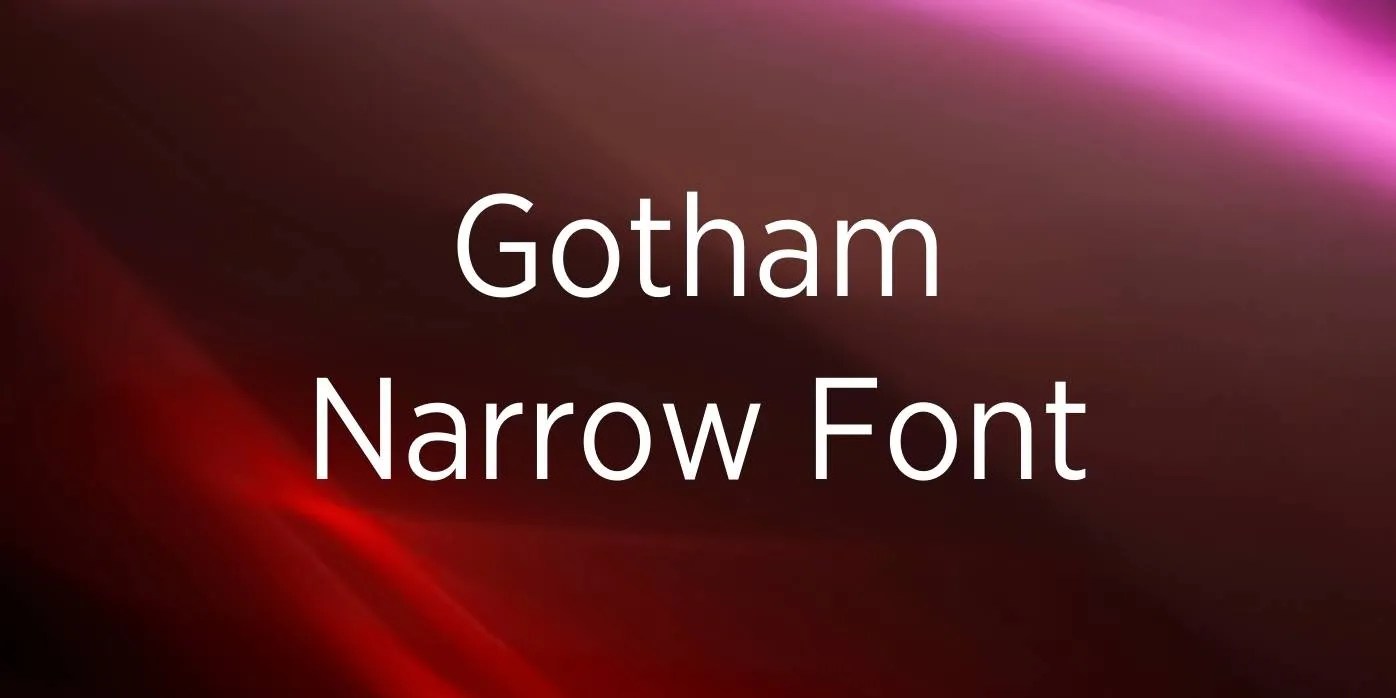
Gotham Font Alternative In Word . In this article, we'll provide you with 14 gotham font alternatives. Gotham, fortunately, has some really good google font alternatives. Montserrat is going to be your best bet. In this post, we check out some of the best fonts similar to gotham. Do you like the gotham font, but want a more stylish approach for your advertisements? From gotham light alternatives to gotham black fonts, gotham book fonts,. How about a delicate font for printing out cards or brochures? If you’re looking for fonts similar to gotham that capture its clean, modern aesthetic and versatility, here are several great. However, if that one doesn't work for.
Do you like the gotham font, but want a more stylish approach for your advertisements? However, if that one doesn't work for. In this article, we'll provide you with 14 gotham font alternatives. How about a delicate font for printing out cards or brochures? From gotham light alternatives to gotham black fonts, gotham book fonts,. In this post, we check out some of the best fonts similar to gotham. If you’re looking for fonts similar to gotham that capture its clean, modern aesthetic and versatility, here are several great. Gotham, fortunately, has some really good google font alternatives. Montserrat is going to be your best bet.
Gotham Font Alternative In Word In this article, we'll provide you with 14 gotham font alternatives. Do you like the gotham font, but want a more stylish approach for your advertisements? From gotham light alternatives to gotham black fonts, gotham book fonts,. In this post, we check out some of the best fonts similar to gotham. In this article, we'll provide you with 14 gotham font alternatives. Montserrat is going to be your best bet. Gotham, fortunately, has some really good google font alternatives. If you’re looking for fonts similar to gotham that capture its clean, modern aesthetic and versatility, here are several great. However, if that one doesn't work for. How about a delicate font for printing out cards or brochures?
A24 Font Alternatives A Guide To Finding The Right Font Gotham Font Alternative In Word Montserrat is going to be your best bet. From gotham light alternatives to gotham black fonts, gotham book fonts,. In this article, we'll provide you with 14 gotham font alternatives. Do you like the gotham font, but want a more stylish approach for your advertisements? However, if that one doesn't work for. Gotham, fortunately, has some really good google font. Gotham Font Alternative In Word.
Fonts Alternative Typeface Options MadeByShape Gotham Font Alternative In Word Gotham, fortunately, has some really good google font alternatives. From gotham light alternatives to gotham black fonts, gotham book fonts,. Montserrat is going to be your best bet. In this article, we'll provide you with 14 gotham font alternatives. In this post, we check out some of the best fonts similar to gotham. Do you like the gotham font, but. Gotham Font Alternative In Word.
Gotham Narrow Font Free Download Gotham Font Alternative In Word From gotham light alternatives to gotham black fonts, gotham book fonts,. Montserrat is going to be your best bet. In this post, we check out some of the best fonts similar to gotham. Gotham, fortunately, has some really good google font alternatives. Do you like the gotham font, but want a more stylish approach for your advertisements? How about a. Gotham Font Alternative In Word.
10 Free Font Alternatives to Gotham WDD Gotham Font Alternative In Word How about a delicate font for printing out cards or brochures? Do you like the gotham font, but want a more stylish approach for your advertisements? However, if that one doesn't work for. If you’re looking for fonts similar to gotham that capture its clean, modern aesthetic and versatility, here are several great. Montserrat is going to be your best. Gotham Font Alternative In Word.
10 Free Font Alternatives to Gotham PHPInfo Gotham Font Alternative In Word If you’re looking for fonts similar to gotham that capture its clean, modern aesthetic and versatility, here are several great. In this post, we check out some of the best fonts similar to gotham. However, if that one doesn't work for. From gotham light alternatives to gotham black fonts, gotham book fonts,. In this article, we'll provide you with 14. Gotham Font Alternative In Word.
Gotham free font YouTube Gotham Font Alternative In Word In this article, we'll provide you with 14 gotham font alternatives. If you’re looking for fonts similar to gotham that capture its clean, modern aesthetic and versatility, here are several great. Montserrat is going to be your best bet. From gotham light alternatives to gotham black fonts, gotham book fonts,. How about a delicate font for printing out cards or. Gotham Font Alternative In Word.
10 Free Font Alternatives to Gotham WDD Gotham Font Alternative In Word However, if that one doesn't work for. Montserrat is going to be your best bet. How about a delicate font for printing out cards or brochures? In this article, we'll provide you with 14 gotham font alternatives. Gotham, fortunately, has some really good google font alternatives. From gotham light alternatives to gotham black fonts, gotham book fonts,. If you’re looking. Gotham Font Alternative In Word.
15 Fonts Similar to Gotham Envato Tuts+ Gotham Font Alternative In Word In this article, we'll provide you with 14 gotham font alternatives. In this post, we check out some of the best fonts similar to gotham. If you’re looking for fonts similar to gotham that capture its clean, modern aesthetic and versatility, here are several great. How about a delicate font for printing out cards or brochures? Montserrat is going to. Gotham Font Alternative In Word.
Gotham Font Combinations & Free Alternatives · Typewolf Gotham Font Alternative In Word From gotham light alternatives to gotham black fonts, gotham book fonts,. In this post, we check out some of the best fonts similar to gotham. Do you like the gotham font, but want a more stylish approach for your advertisements? Gotham, fortunately, has some really good google font alternatives. If you’re looking for fonts similar to gotham that capture its. Gotham Font Alternative In Word.